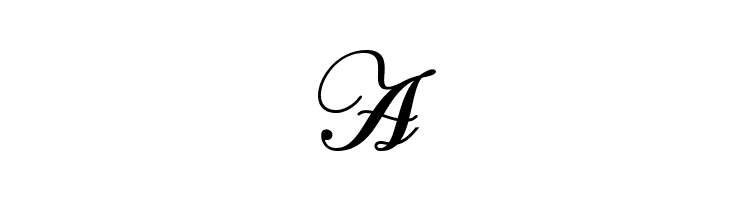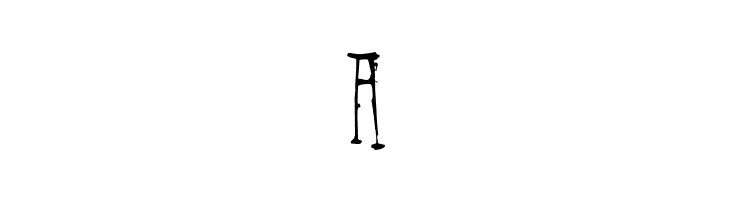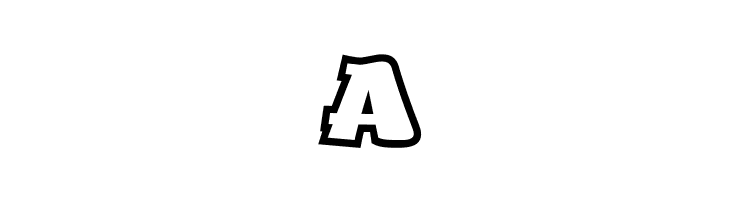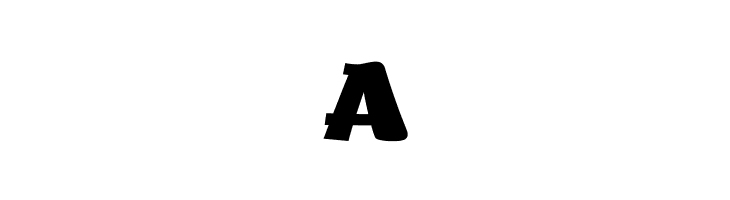
A bold, flowing script font with interconnected characters and a dynamic, handwritten style.
A bold, rounded typeface with a playful and modern style.
A bold, italic font with dynamic and flowing letterforms, ideal for impactful designs.
A bold, playful font with rounded strokes and a dynamic slant.
A bold, italic font with a dynamic and modern style.
A clean, modern font with smooth curves and a minimalist design.
A sleek, extra light italic font with a modern and elegant style.
A bold, playful font with thick, rounded strokes and high contrast.
A bold, heavy italic font with a dynamic and energetic style.
A bold, playful font with heavy outlines and a cartoon-like style.
A dynamic italic font with smooth, flowing lines and a modern aesthetic.
A clean, modern font with smooth curves and consistent stroke width.
A light, elegant italic font with smooth curves and a modern feel.
A bold, modern font with a playful yet professional style.
A sleek, modern font with thin lines and a minimalist design.
A sleek, thin italic font with a refined and elegant style.
A modern, geometric font with a futuristic and sleek design.
A bold, decorative script font with elegant curves and flourishes.
A lively, cursive font with a handwritten, elegant style.
An elegant script font with intricate loops and flourishes, perfect for sophisticated designs.
A playful, whimsical handwritten font with flowing, cursive-like letterforms.
A bold, expressive handwritten script font with dynamic curves.
A bold, brush-style script font with dynamic and expressive characters.
A bold, dynamic handwritten font with rounded edges and a playful style.
A bold, brush-style font with a dynamic and energetic appearance.
A decorative, distressed font with jagged edges and an organic, hand-drawn style.
A geometric slab serif typeface with strong lines and modern aesthetics.